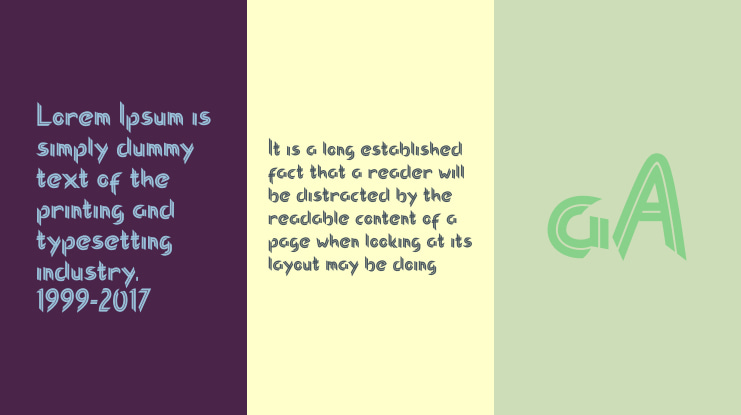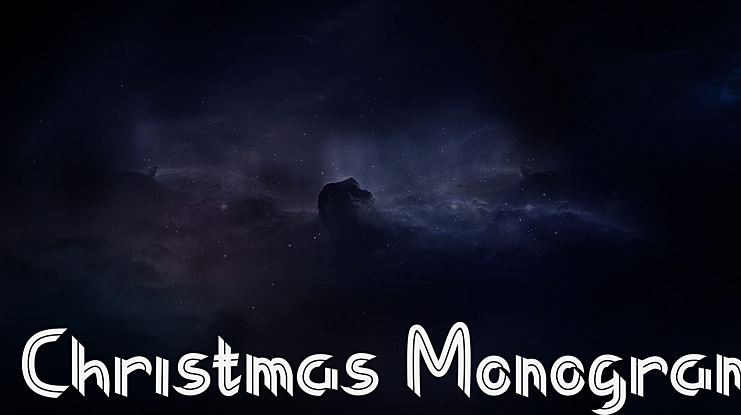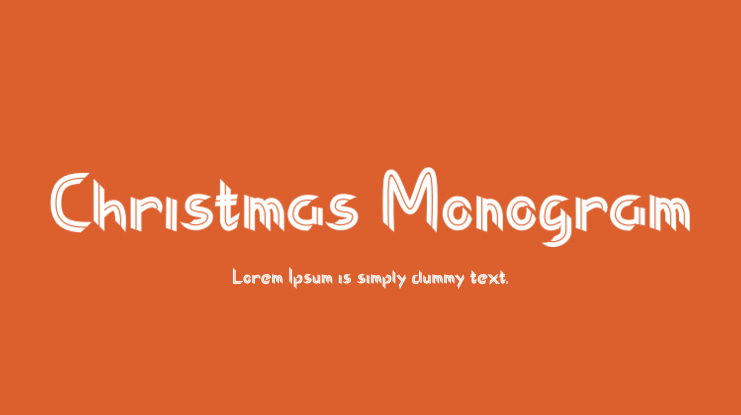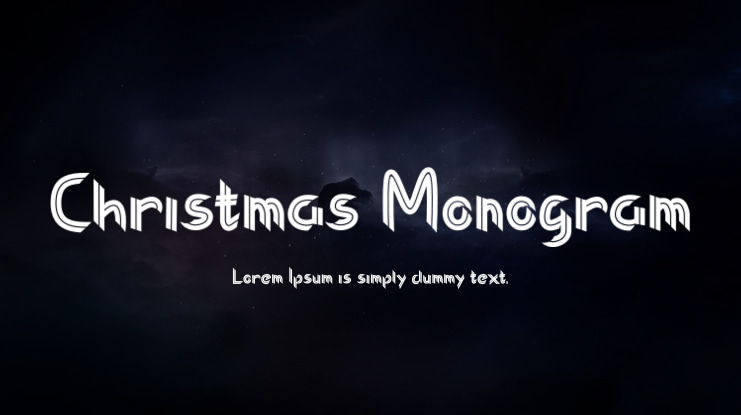
Christmas Monogram Font
Christmas Monogram is a fun and incredibly unique display font. It is ideal for any festive or holiday themed design that you wish to develop. Let your imagination run free!